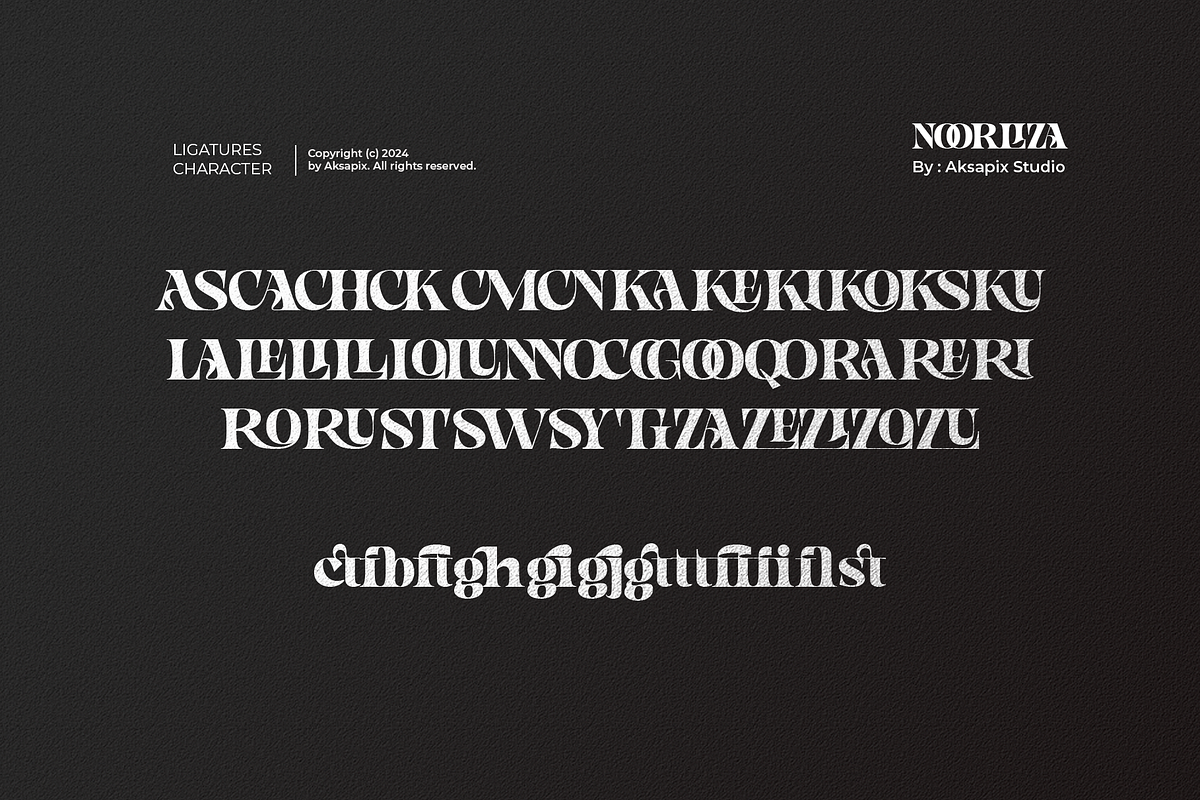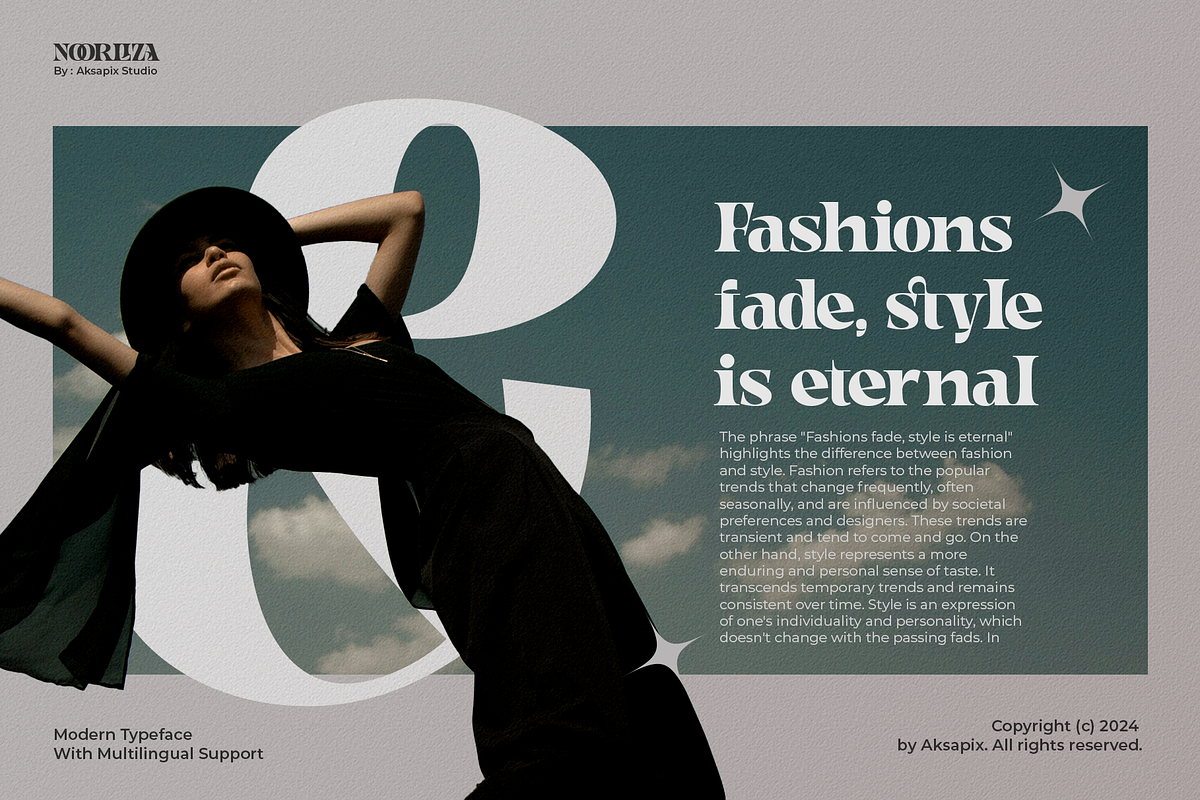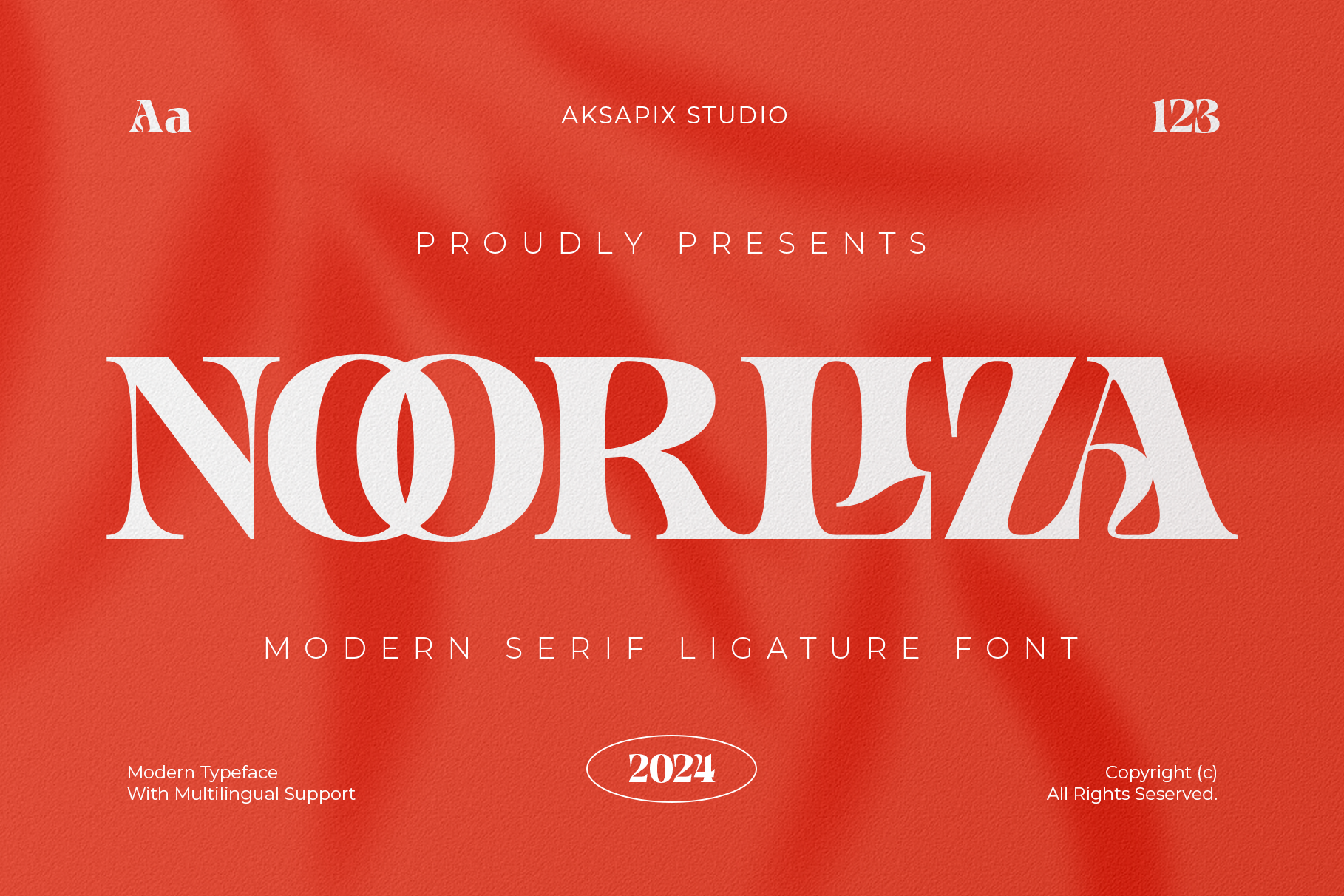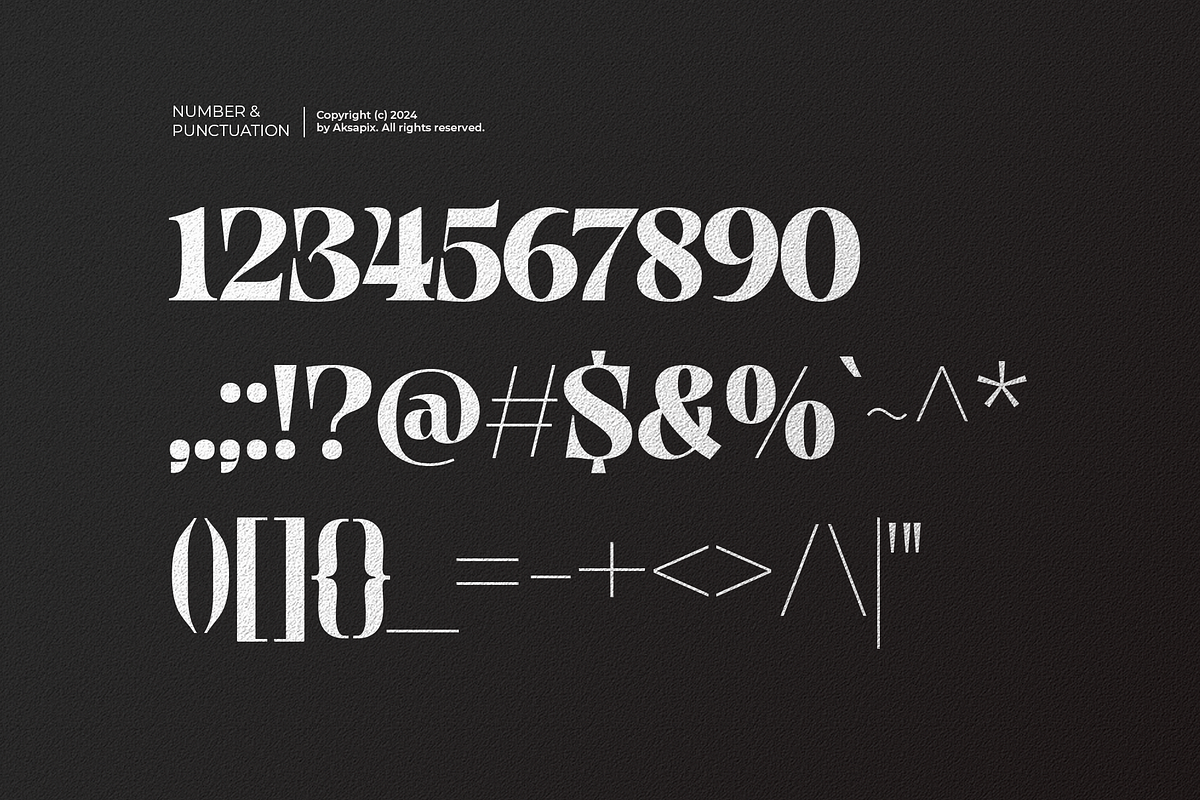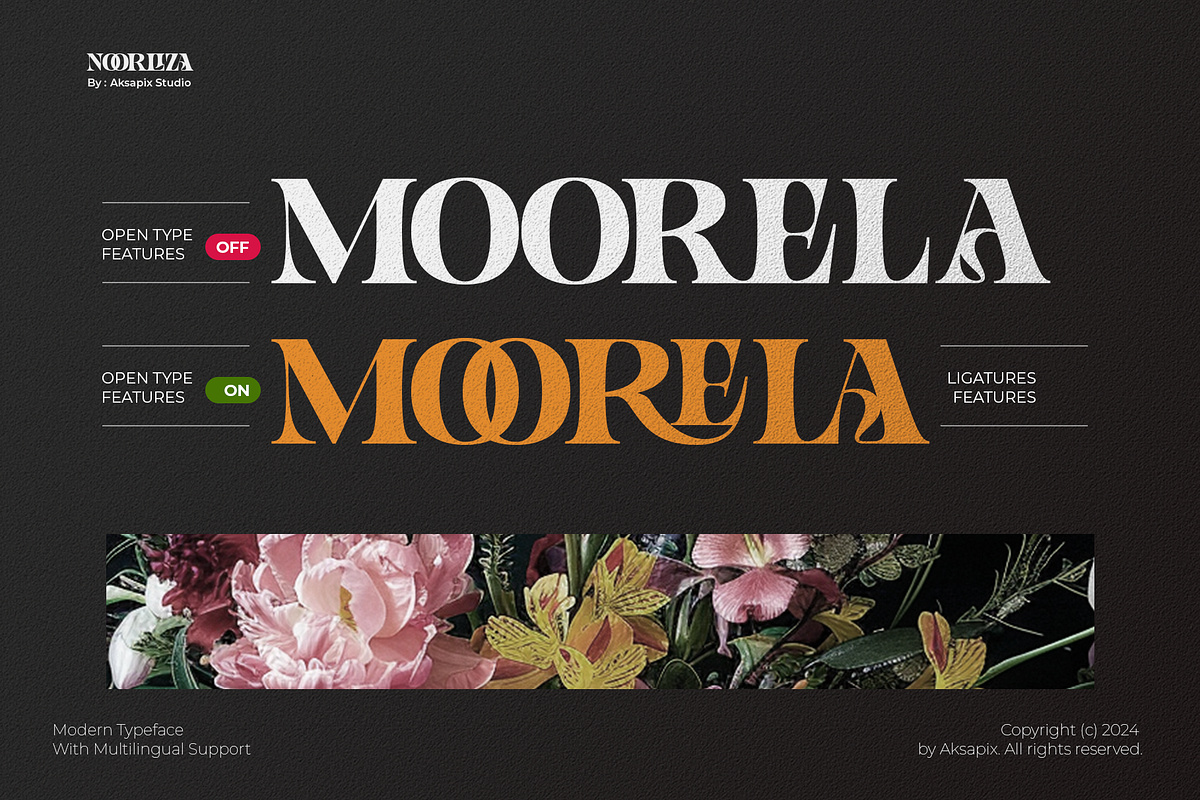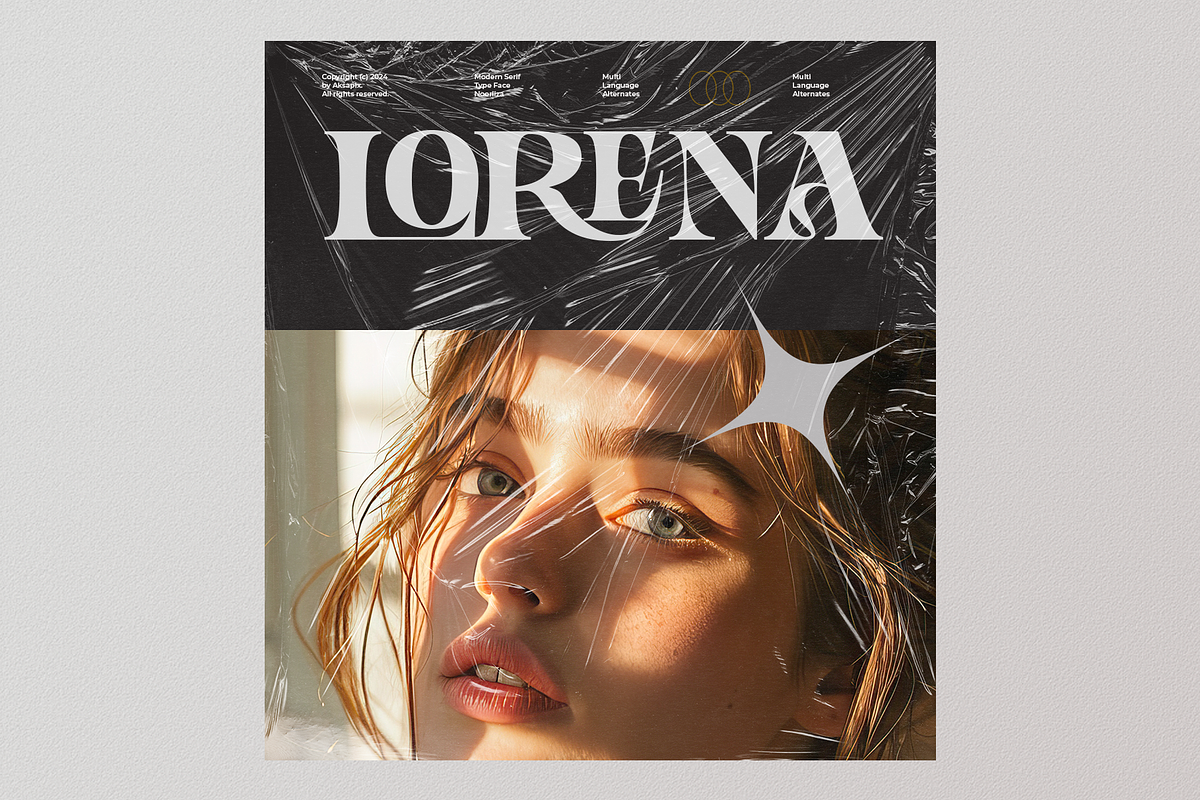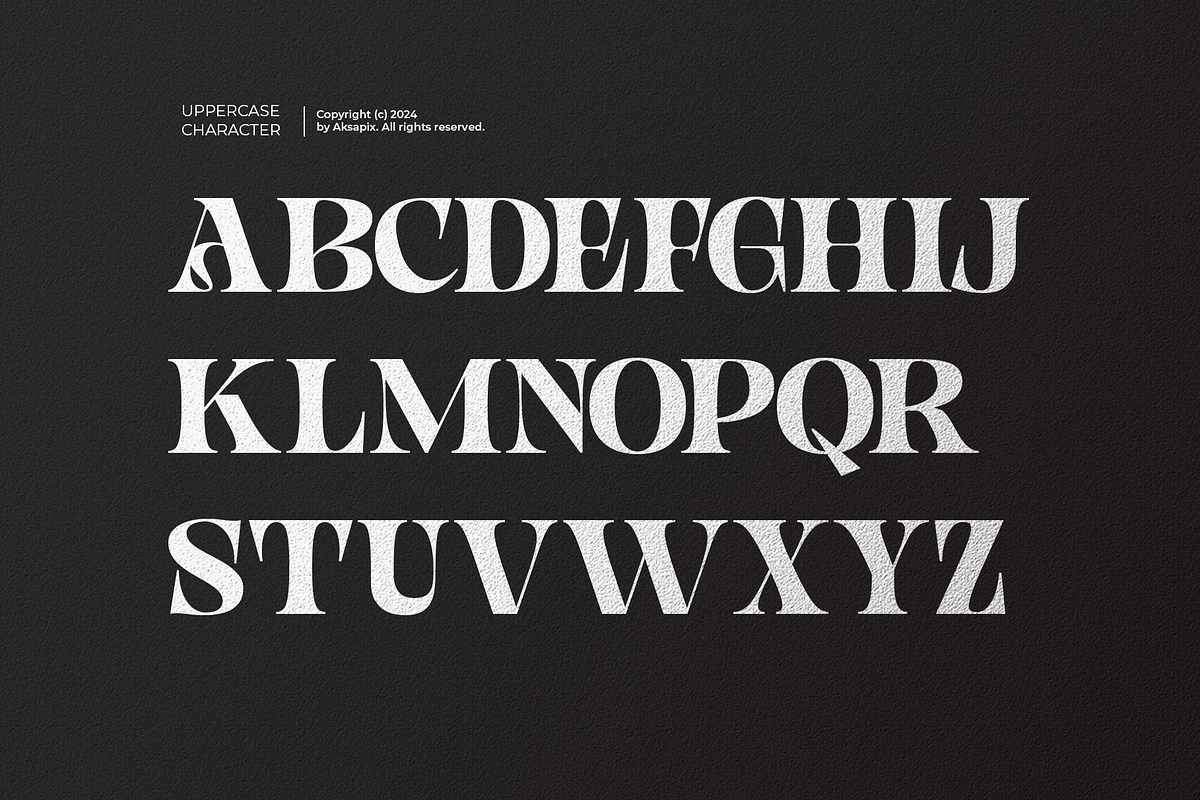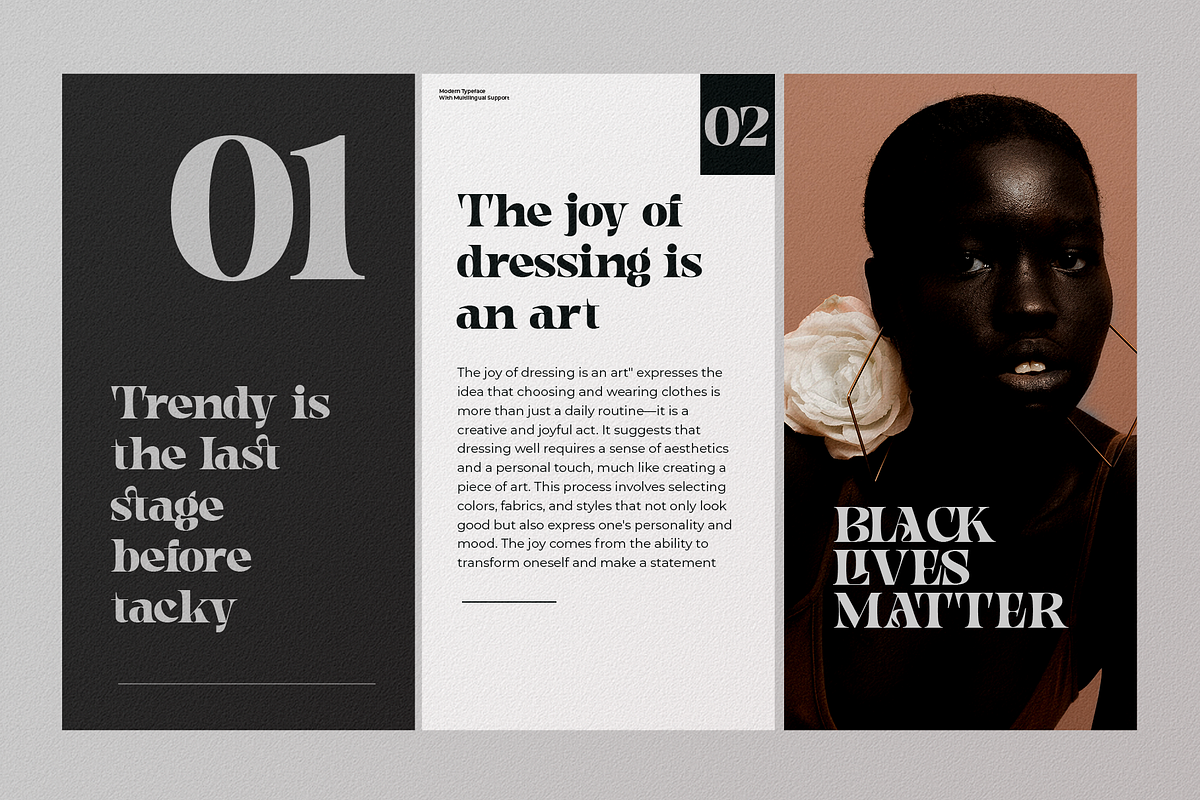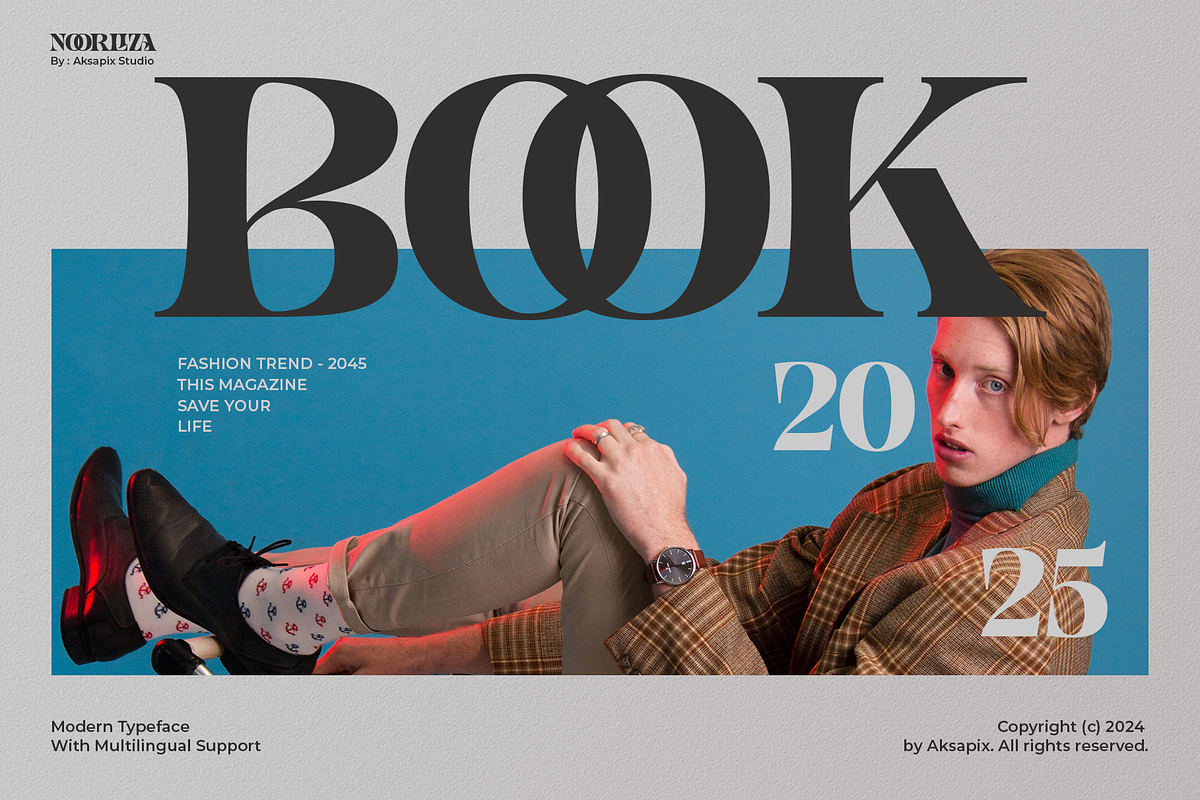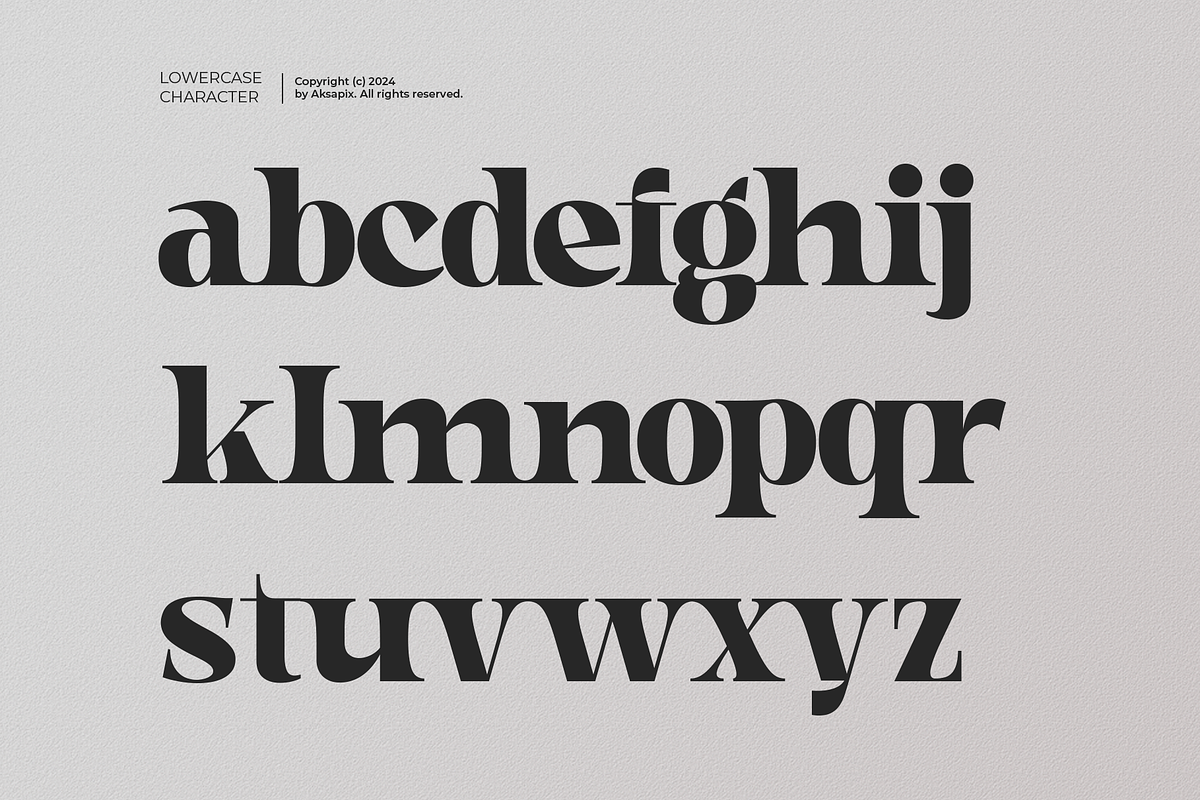
Noorliza - Modern Serif Font
Introducing Noorliza - Modern Serif Ligature Font, a sophisticated typeface that merges classic elegance with contemporary style. Noorliza is designed to bring a touch of refinement to your projects with its well-crafted ligatures and versatile character set. Whether you’re working on branding, editorial design, or any creative endeavor, this font provides a seamless blend of beauty and functionality.
Extensive Ligature Options: Offers a wide selection of ligatures for a more unique and polished look.
Branding and Logos
Editorial Design
Wedding Invitations
Elevate your designs with the timeless sophistication of Noorliza - Modern Serif Ligature Font. Its versatile nature and elegant features make it an essential addition to your font collection.